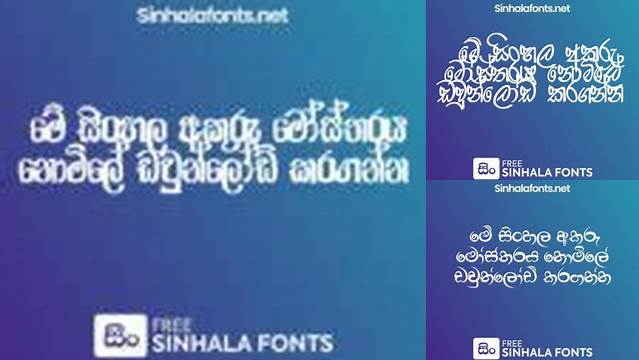
H2: Unveiling the World of Sinhala Fonts: A Beginner's Guide
Alright, first things first, let's talk about what Sinhala fonts actually are. Think of them as the digital clothing for your Sinhala text. They determine the look and feel of your words, whether you're writing a letter, designing a poster, or creating content online. The Sinhala font software free download for PC realm opens up a world of possibilities, from classic and elegant styles to modern and quirky ones. The beauty of it is, you can customize your digital communication in a way that truly reflects your personality or the message you want to convey. Before diving into the specifics of downloading and installing, let's take a quick look at why Sinhala fonts are so important. They're essential for anyone who wants to communicate effectively in the Sinhala language. This includes everything from writing emails to creating documents, designing websites, and producing social media content. Without the right fonts, your Sinhala text might appear as a jumbled mess of symbols, completely unreadable, or just plain wrong. Using the correct fonts ensures that your message is clear, professional, and visually appealing. Choosing the right font is also crucial. You want something that is not only readable but also complements the overall tone and style of your project. For formal documents, you might opt for a clean and elegant serif font. For creative projects, you might experiment with more unique and expressive fonts. The wide range of Sinhala font software free download for PC options enables you to express creativity and add authenticity to your work. It's like choosing the perfect outfit; it can completely transform the way your work looks. By understanding these basics, you're well on your way to mastering Sinhala fonts.
H2: Top Free Sinhala Font Software Options for Your PC
Alright, let's get down to the good stuff: the best free Sinhala font software free download for PC options out there. I'm going to cover some of the most popular and reliable choices, so you can get started right away. I will include a brief description of each font to help you choose the right one for your needs. Remember, the best choice depends on your specific requirements, whether you need a font for creative projects, document writing, or web design. Each option offers a unique style and character set. So let's find out which font works best for you. The goal is to find a font that not only looks great but also has a complete set of characters to avoid any missing glyphs.
H3: Popular Sinhala Fonts for Download and Usage
Here are some of the popular Sinhala font software free download for PC options, that are readily available and easy to use: The first one is FM Abhaya. This is a classic choice, known for its clean lines and readability. It's often used in official documents and publications, and it provides a professional look and feel. This font is a great starting point for anyone looking for a reliable Sinhala font. Next, we have Kumbuka. It is a versatile font and is used in various contexts, from creative projects to everyday documents. Another popular one is Malithi. This is a more stylized option that adds flair and personality to your text. It's perfect for headlines, posters, and other attention-grabbing elements. Another one is SinhalaUnicode. This font is specially designed to support the Unicode standard, so you can be sure that all Sinhala characters will display correctly. It's a safe bet for both beginners and experienced users. It’s important to note that most of these fonts come in different styles. Also, you can download them from various websites and font repositories, or you can download them directly from the font author's website. Before downloading any font, make sure to check its license, which will specify how you can use the font. With these options, you'll be well-equipped to handle any Sinhala-related project. Each font has unique characteristics. Experiment with different fonts to find one that matches your project's needs.